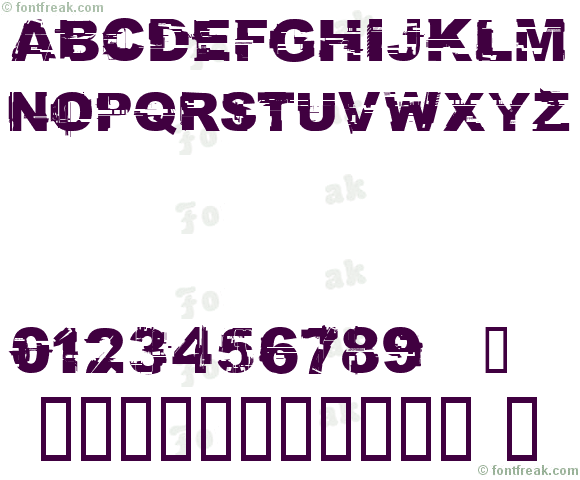
CF Glitch City Regular
About CF Glitch City Regular
CF Glitch City Regular is a distinctive display font created by Cloutierfontes that captures the essence of contemporary urban aesthetics. This font is categorized as a decorative typeface, characterized by its unique glitch-inspired design elements. The strokes exhibit a varied weight, with some letters appearing fragmented, evoking a sense of movement and digital disruption. The spacing is thoughtfully arranged to maintain legibility while enhancing the overall visual impact, making it an ideal choice for projects that require a bold statement.
This font is particularly suited for creative applications such as movie posters, where its edgy appearance can draw attention and convey a sense of modernity. It also works well for video game graphics, helping to create immersive environments that reflect the digital age. Additionally, CF Glitch City Regular can be effectively utilized in promotional materials for tech startups, giving a contemporary flair that resonates with a younger audience. Small business owners looking to establish a unique brand identity will find this font invaluable in their marketing collateral, from flyers to social media graphics.
What truly sets CF Glitch City Regular apart is its ability to blend artistic flair with functional design. The font's distinctive glitch motif not only captures attention but also invites curiosity, making any project memorable. For those searching for a font that embodies a modern, urban vibe, the CF Glitch City Regular font free download offers an exciting opportunity to elevate your design work.